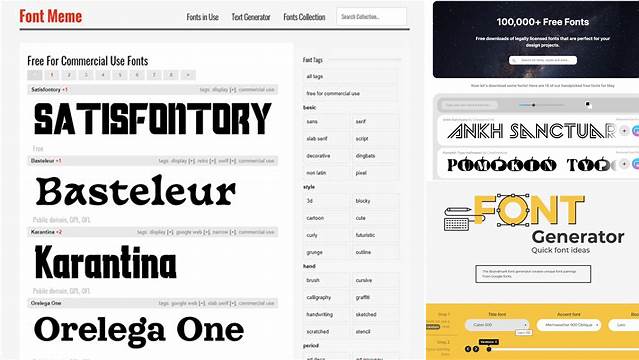
Free Font Generator: Design Your Own Unique Fonts
Creating unique and eye-catching typography is crucial for any design project, whether it's for a website, logo, or marketing materials. But designing your own fonts from scratch can be a time-consuming and complex process. That's where free font generators come in handy! These online tools allow you to create custom fonts quickly and easily, without needing any specialized software or design skills. Guys, let's dive into the world of free font generators and explore how they can help you unleash your creativity.
What is a Free Font Generator?
Free font generators are web-based applications that allow you to create your own fonts by modifying existing typefaces or designing entirely new ones. These tools typically offer a range of features, such as:
- Glyph editing: Modify the shape and form of individual letters, numbers, and symbols.
- Font style customization: Adjust the weight, width, slant, and other characteristics of your font.
- Importing and exporting fonts: Upload existing fonts to customize them or export your creations in various formats (e.g., TTF, OTF).
- Previewing: See how your font looks in different sizes and contexts.
- Character set support: Create fonts with support for various languages and character sets.
Many free font generators offer user-friendly interfaces and intuitive tools, making them accessible to both beginners and experienced designers. By using these tools, you can create fonts that perfectly match your brand identity, design aesthetic, or project requirements. The ability to fine-tune every aspect of a font, from the thickness of the strokes to the curvature of the serifs, allows for unparalleled customization and ensures your typography is as unique as your vision. Moreover, the real-time preview features offered by these generators allow you to see your changes instantly, streamlining the design process and ensuring the final product aligns perfectly with your expectations. This iterative approach to font design not only saves time but also encourages experimentation, leading to the discovery of new and exciting typographical styles. For anyone looking to add a personal touch to their projects or create a distinctive brand identity, free font generators offer an invaluable resource, democratizing the art of typography and making it accessible to all.
Why Use a Free Font Generator?
There are several compelling reasons to use a free font generator for your typography needs:
- Cost-effectiveness: As the name suggests, these tools are free to use, making them a budget-friendly option for individuals and small businesses. This is particularly beneficial for startups or personal projects where resources may be limited. The cost savings can be significant, especially when compared to purchasing commercial fonts or hiring a professional typographer. Moreover, the availability of free font generators levels the playing field, allowing creators with limited budgets to access high-quality typographic resources. This democratization of design tools fosters creativity and innovation, enabling a wider range of individuals to express their unique visions. By eliminating the financial barrier, these generators empower users to experiment with different styles and create custom fonts that perfectly align with their branding or project needs, without compromising on quality or originality. The affordability of these tools makes them an indispensable asset for anyone looking to elevate their design work without breaking the bank.
- Customization: Free font generators allow you to create fonts that are truly unique and tailored to your specific needs. You're not limited to pre-designed fonts; you have the freedom to adjust every aspect of the typeface. This level of customization is crucial for branding, where consistency and uniqueness are key. By crafting a bespoke font, businesses can create a distinct visual identity that sets them apart from competitors. The ability to tweak individual glyphs, adjust spacing, and experiment with different weights and styles ensures that the final font perfectly complements the brand's personality and message. Furthermore, custom fonts can enhance readability and user experience, particularly in digital interfaces. A well-designed font can improve the legibility of text on screens, making websites and applications more accessible and user-friendly. In the realm of marketing and advertising, custom fonts can add a touch of sophistication and memorability to promotional materials, helping to capture the audience's attention and reinforce brand recognition. Free font generators empower designers and businesses to create typography that is not only visually appealing but also strategically aligned with their objectives.
- Time-saving: Creating a font from scratch using traditional font design software can take weeks or even months. Free font generators streamline the process, allowing you to create a custom font in a matter of hours or even minutes. This is a significant advantage for projects with tight deadlines or when you need to quickly iterate on design concepts. The intuitive interfaces and user-friendly tools of these generators simplify the design process, making it accessible to individuals with varying levels of expertise. The ability to import existing fonts and modify them further accelerates the workflow, enabling designers to build upon established typefaces and create unique variations. Real-time preview features allow you to see the impact of your changes instantly, reducing the need for time-consuming revisions. Moreover, many free font generators offer pre-designed templates and elements that can be used as a starting point, further speeding up the design process. By automating many of the tedious tasks involved in font creation, these tools free up designers to focus on the creative aspects of typography, resulting in more innovative and impactful designs. The time-saving benefits of free font generators make them an indispensable asset for designers, marketers, and anyone looking to create custom typography efficiently and effectively.
- Accessibility: Free font generators are typically web-based, meaning you can access them from any device with an internet connection. You don't need to install any software or have a powerful computer. This accessibility makes them a convenient option for designers who work on the go or who don't have access to expensive design tools. The cloud-based nature of these tools also facilitates collaboration, allowing multiple users to work on the same font project simultaneously. This is particularly useful for design teams or when working with clients remotely. The ease of access offered by free font generators extends the reach of typography design to a broader audience, empowering individuals from diverse backgrounds and skill levels to create their own fonts. The absence of software installation requirements eliminates compatibility issues and ensures that the tools are accessible to users regardless of their operating system or hardware configurations. Furthermore, many free font generators are designed with user-friendliness in mind, featuring intuitive interfaces and clear instructions that make the design process approachable for beginners. The combination of accessibility and ease of use makes these tools a valuable resource for anyone looking to explore the world of typography and create custom fonts for their projects.
Popular Free Font Generators
Let's explore some popular free font generators available online:
- Calligraphr: This tool allows you to create a font from your own handwriting. Simply print out a template, write the letters and symbols, scan it, and upload it to Calligraphr. The platform then converts your handwriting into a usable font file. This is an excellent option for creating personalized fonts for invitations, cards, or branding materials. The process is straightforward and intuitive, making it accessible to users with no prior font design experience. The ability to incorporate your personal handwriting into a font adds a unique and intimate touch to your designs. Calligraphr's versatility extends beyond handwriting; it can also be used to create fonts from hand-drawn illustrations or other graphical elements. This opens up a wide range of creative possibilities, allowing you to craft truly one-of-a-kind typefaces. Whether you're a calligrapher, artist, or simply someone who wants to add a personal flair to their projects, Calligraphr offers a powerful and user-friendly solution for creating custom fonts. The platform's focus on handwriting and personalized typography sets it apart from other font generators, making it a valuable tool for those seeking to inject authenticity and character into their designs. The resulting fonts can be used in a variety of applications, from digital designs to print materials, adding a touch of human artistry to any project.
- FontStruct: FontStruct is a modular font editor that lets you build fonts using geometric shapes. It's a great option for creating pixel fonts, display fonts, and other geometric typefaces. The platform's grid-based interface makes it easy to create precise and consistent letterforms. FontStruct's unique approach to font design encourages experimentation and creativity, allowing users to explore the possibilities of geometric typography. The modular nature of the tool enables the creation of intricate and complex designs by combining simple shapes. This makes it particularly well-suited for creating fonts with a modern or futuristic aesthetic. FontStruct's community-driven platform also provides a wealth of inspiration and resources, with users sharing their creations and providing feedback to one another. This collaborative environment fosters learning and innovation, making FontStruct a valuable resource for both novice and experienced font designers. The platform's focus on geometric shapes and modular construction allows for the creation of highly stylized and distinctive typefaces. FontStruct's fonts are often used in digital art, video games, and other applications where a pixelated or geometric look is desired. The tool's accessibility and ease of use make it a popular choice for hobbyists, students, and professionals alike.
- BirdFont: BirdFont is a free, open-source font editor that offers a wide range of features for creating professional-quality fonts. It supports both TrueType and OpenType formats and allows you to import and export fonts in various formats. BirdFont's intuitive interface and comprehensive toolset make it a powerful option for designers who want to have more control over the font creation process. The platform's open-source nature means that it is constantly evolving and improving, with a dedicated community of developers contributing to its development. BirdFont's support for both TrueType and OpenType formats ensures compatibility with a wide range of applications and devices. The platform's ability to import and export fonts in various formats makes it easy to integrate into existing design workflows. BirdFont's comprehensive toolset includes features for glyph editing, kerning, and hinting, allowing designers to fine-tune every aspect of their fonts. The platform's intuitive interface makes it accessible to both beginners and experienced font designers. BirdFont's versatility and power make it a valuable tool for creating custom fonts for a variety of applications, from branding to web design to print materials. The platform's open-source nature ensures that it remains a free and accessible resource for the design community.
- Glyphr Studio: Glyphr Studio is a free, browser-based font editor that focuses on simplicity and ease of use. It's a great option for beginners who are just starting to explore font design. The platform's clean and intuitive interface makes it easy to learn the basics of font creation. Glyphr Studio's features include glyph editing, kerning, and font export in OpenType format. The platform's focus on simplicity does not come at the expense of functionality; Glyphr Studio offers a robust set of tools for creating professional-quality fonts. The browser-based nature of the tool makes it accessible from any device with an internet connection, eliminating the need for software installation. Glyphr Studio's user-friendly interface and comprehensive documentation make it an excellent learning tool for aspiring font designers. The platform's support for OpenType format ensures compatibility with a wide range of applications. Glyphr Studio's versatility makes it suitable for a variety of font design projects, from logos to web typography to print materials. The platform's commitment to simplicity and ease of use makes it a popular choice for beginners and experienced designers alike. Glyphr Studio is a valuable resource for anyone looking to create custom fonts without the complexity of traditional font design software.
Tips for Using a Free Font Generator
To make the most of free font generators, consider these tips:
- Start with a clear vision: Before you start designing, have a clear idea of what you want your font to look like and what purpose it will serve. This will help you make informed decisions throughout the design process and ensure that the final product meets your needs. Consider the overall aesthetic you're aiming for, the target audience, and the context in which the font will be used. A clear vision will provide a roadmap for your design efforts and prevent you from getting lost in the myriad options available in free font generators. Think about the specific characteristics you want your font to have, such as its weight, width, slant, and the overall feel you want it to convey. By defining these parameters upfront, you can streamline the design process and ensure that your font aligns with your vision. A well-defined vision will also help you evaluate your font's effectiveness and make necessary adjustments along the way. Remember, a clear understanding of your goals is the foundation for creating a successful and impactful typeface.
- Experiment with different styles: Don't be afraid to try different styles and approaches. Free font generators make it easy to experiment and see what works best. This is the time to unleash your creativity and explore the possibilities of typography. Try different combinations of weights, widths, and styles to see how they affect the overall look and feel of your font. Experiment with different letterforms and serifs to create a unique and distinctive typeface. The iterative nature of font design allows you to refine your creation through trial and error, so don't hesitate to push the boundaries and try new things. Consider the historical context of different font styles and how they might influence your design. Research existing fonts that you admire and analyze their characteristics to gain inspiration for your own creation. The key is to be open to new ideas and willing to experiment until you achieve the desired result. Free font generators provide a safe and cost-effective environment for exploration, so take advantage of the opportunity to discover your own typographic voice.
- Pay attention to detail: Small details can make a big difference in the overall quality of your font. Pay attention to things like kerning (the spacing between letters), the thickness of strokes, and the consistency of letterforms. These details contribute to the readability and aesthetic appeal of your font. Kerning is particularly important, as it can significantly impact the flow of text and the overall visual harmony of your typeface. Inconsistent kerning can make a font look unprofessional and difficult to read. Similarly, the thickness of strokes should be consistent throughout the font, unless you are intentionally creating variations for stylistic purposes. The consistency of letterforms is another crucial aspect of font design. Ensure that similar shapes and elements are consistent across different letters and symbols. This will create a sense of visual cohesion and make your font more pleasing to the eye. Attention to detail is what separates a good font from a great font. By meticulously refining every aspect of your design, you can create a typeface that is both functional and aesthetically compelling. Free font generators often provide tools for fine-tuning these details, so take the time to master them and elevate your font design skills.
- Test your font: Before you finalize your font, test it in different sizes and contexts to ensure it looks good and is legible. This is an essential step in the font design process, as it allows you to identify any potential issues and make necessary adjustments. Print out samples of your font at various sizes and evaluate its readability. Pay attention to how the letterforms interact with each other and whether the kerning is effective. Test your font in different applications and software to ensure compatibility. Check how it renders on different screens and devices. Consider the context in which your font will be used and test it in that environment. For example, if you're designing a font for a website, test it on different browsers and screen resolutions. If you're designing a font for print, test it on different paper stocks and printing methods. The more thoroughly you test your font, the more confident you can be in its quality and usability. Free font generators often provide preview features that allow you to test your font in real-time, but it's always a good idea to conduct additional testing in various environments. By taking the time to test your font, you can ensure that it meets your expectations and delivers the desired impact.
Free font generators are powerful tools that can help you create unique and professional-looking fonts without spending a fortune. Whether you're a designer, marketer, or small business owner, these tools can empower you to express your creativity and elevate your brand identity. So, guys, go ahead and explore the world of free font generation and discover the perfect typeface for your next project!